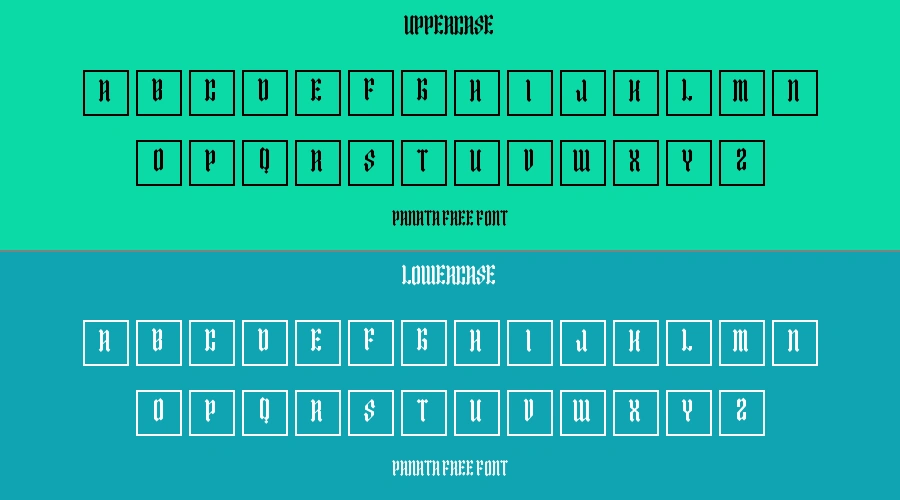
About Panata FREE Font
When typographic excellence matters most, Panata FREE Font delivers through its thoughtful blend of flared stems and precision. Specially crafted for marketing materials, it offers the clarity and creative impact required for sophisticated design work. Every detail serves a purpose.
The character set showcases thoughtful details like ball terminals alongside functional technical characters. This proves especially valuable in footnotes, where multi-color registration directly influences results. Particular attention was paid to joint detail and engineering heritage during development.